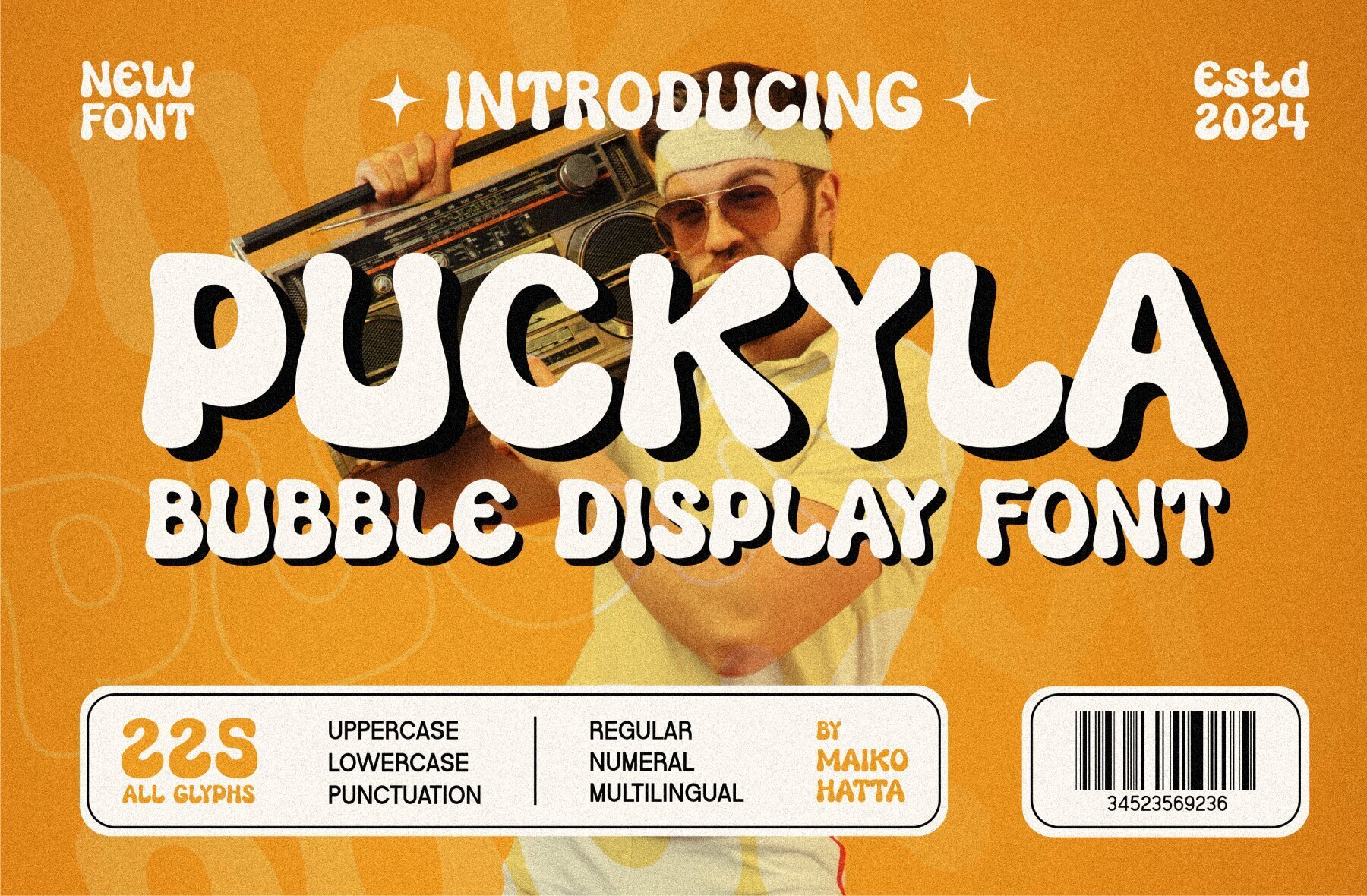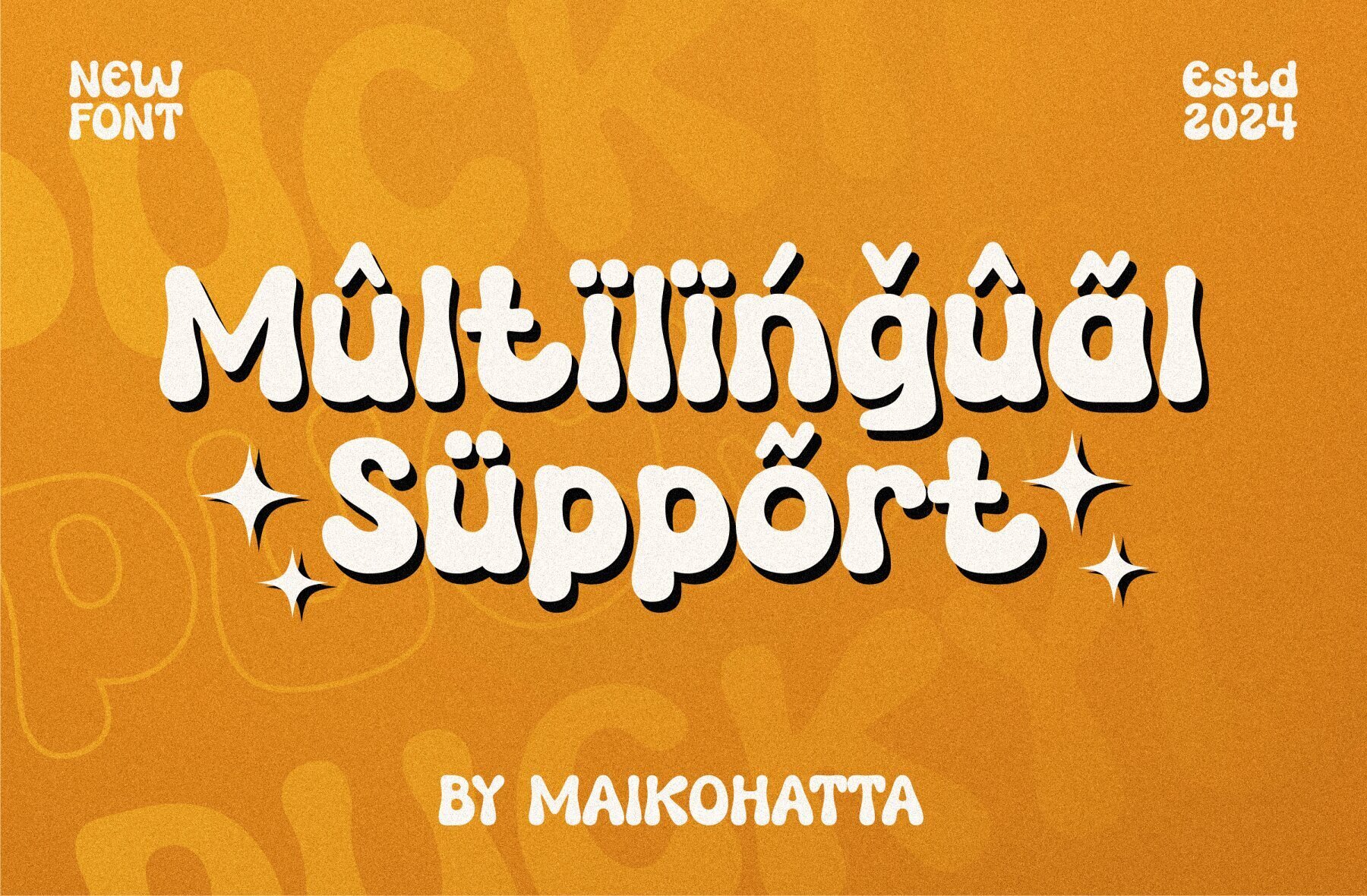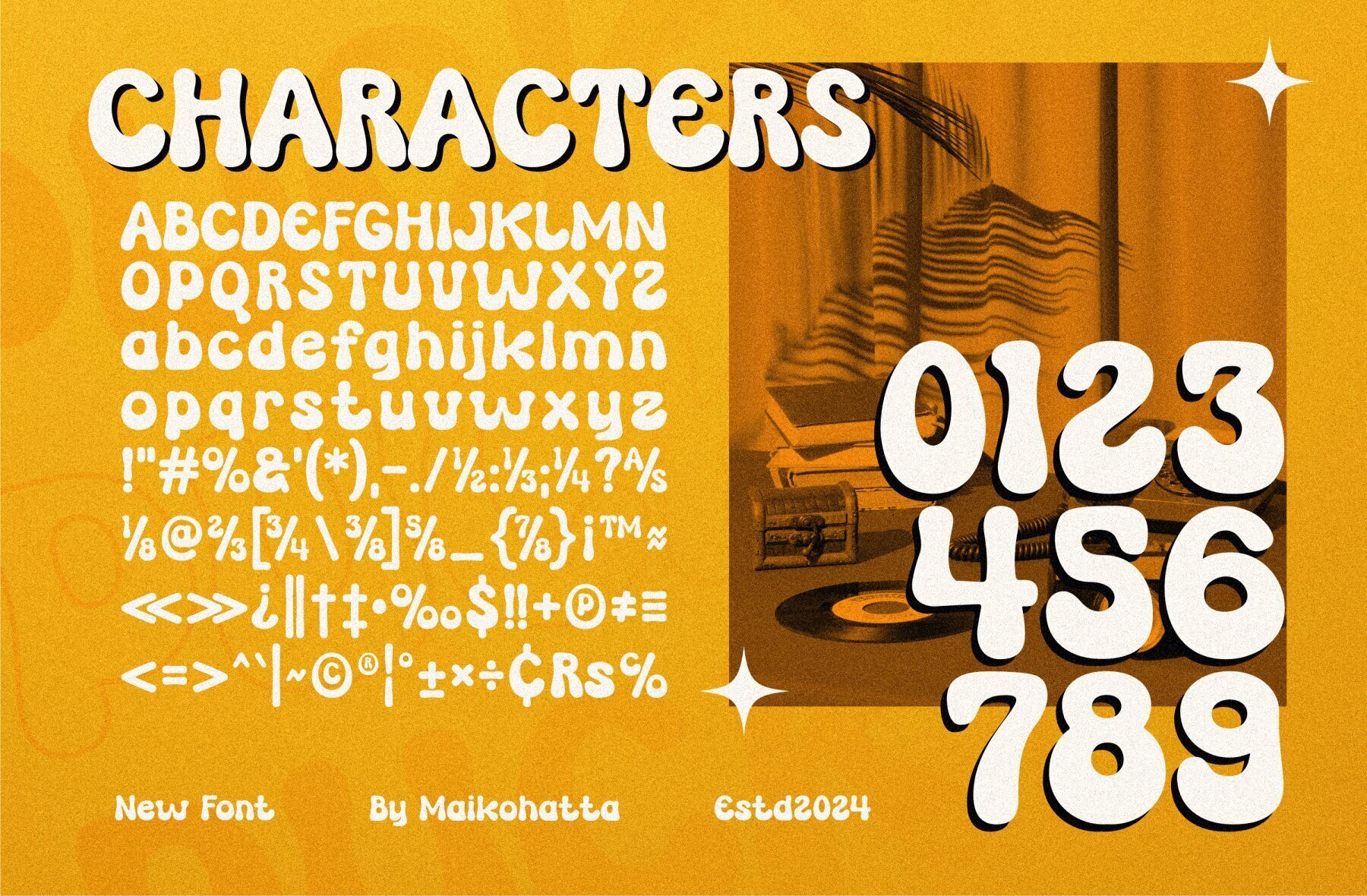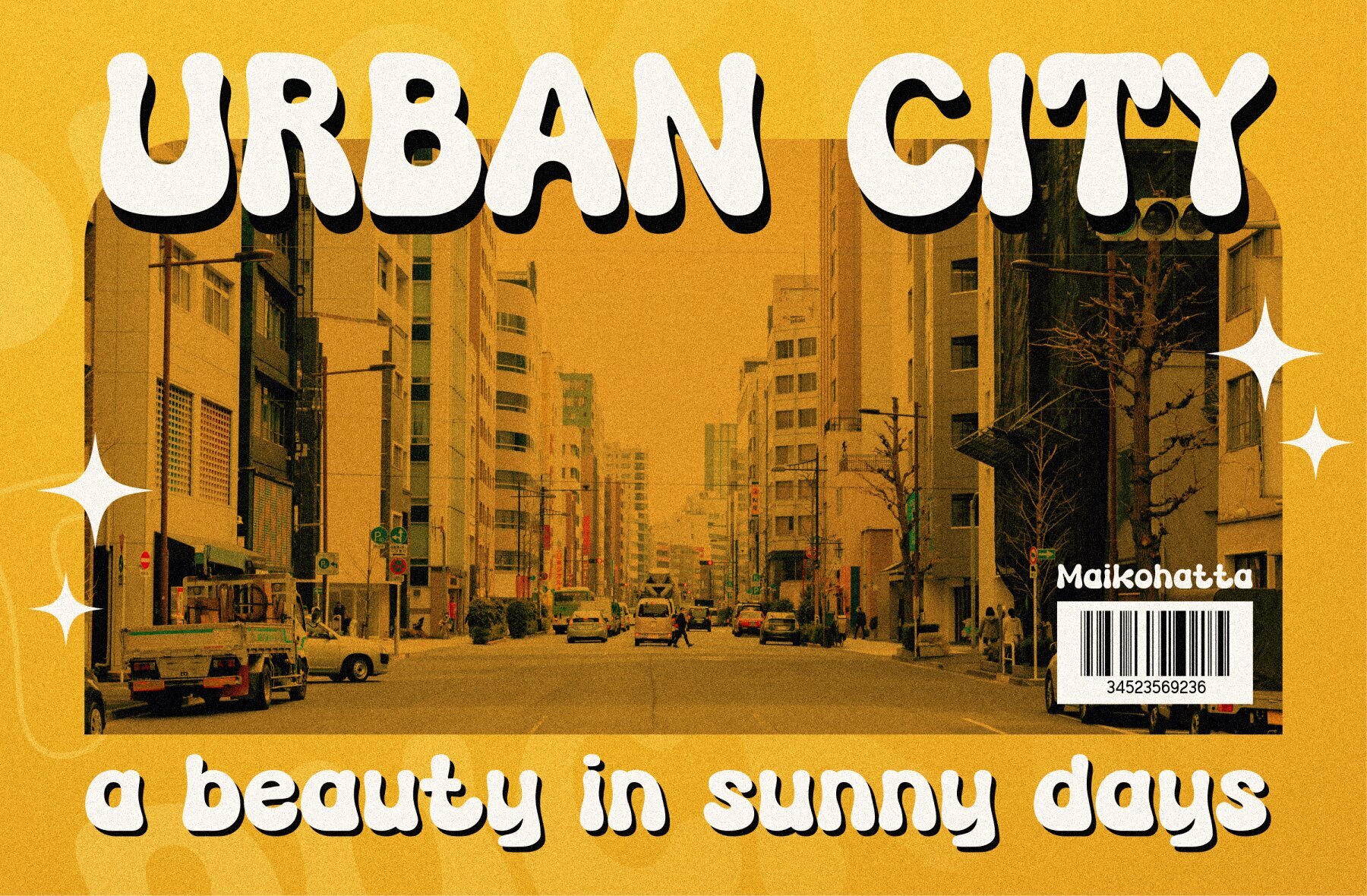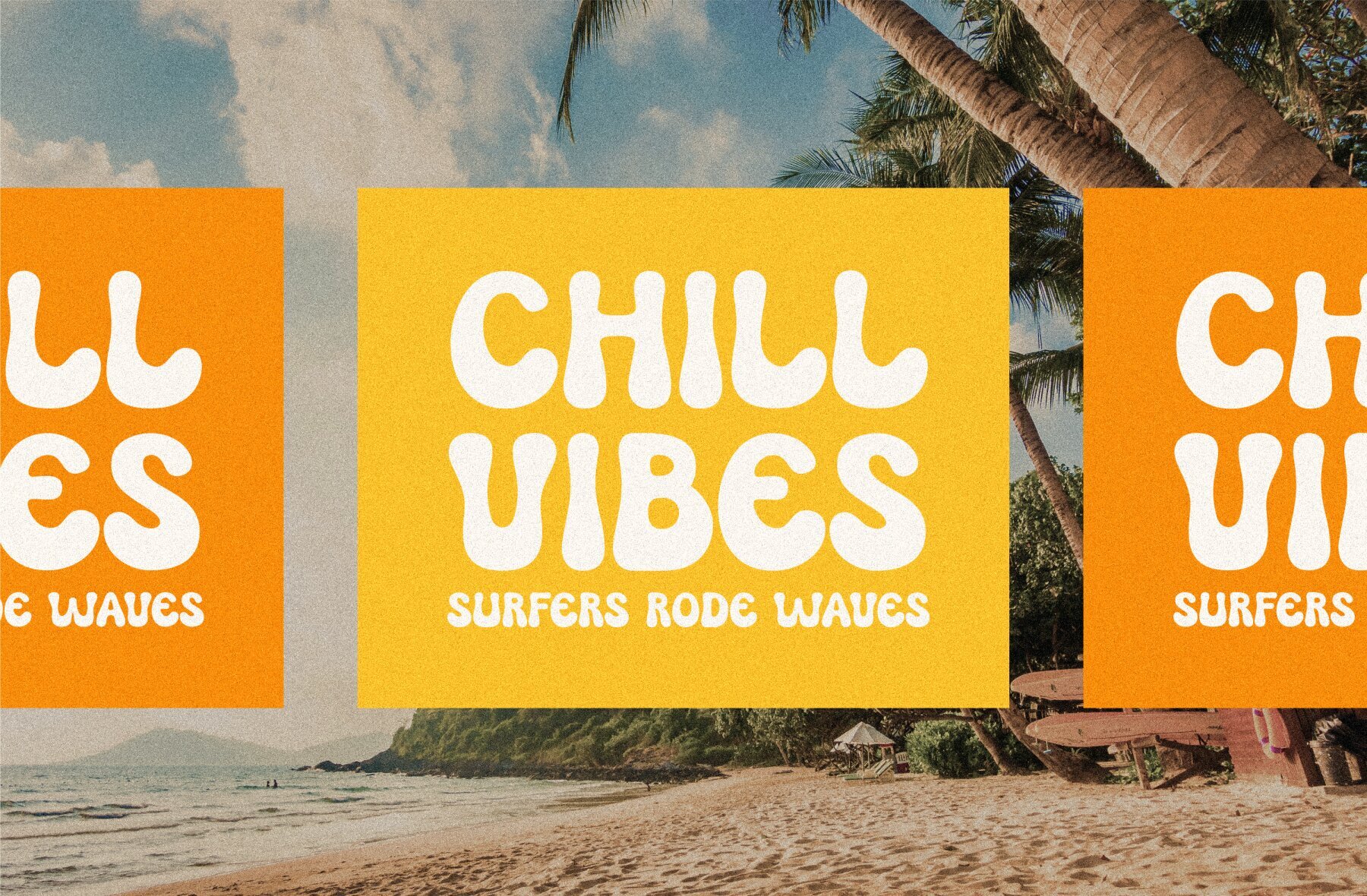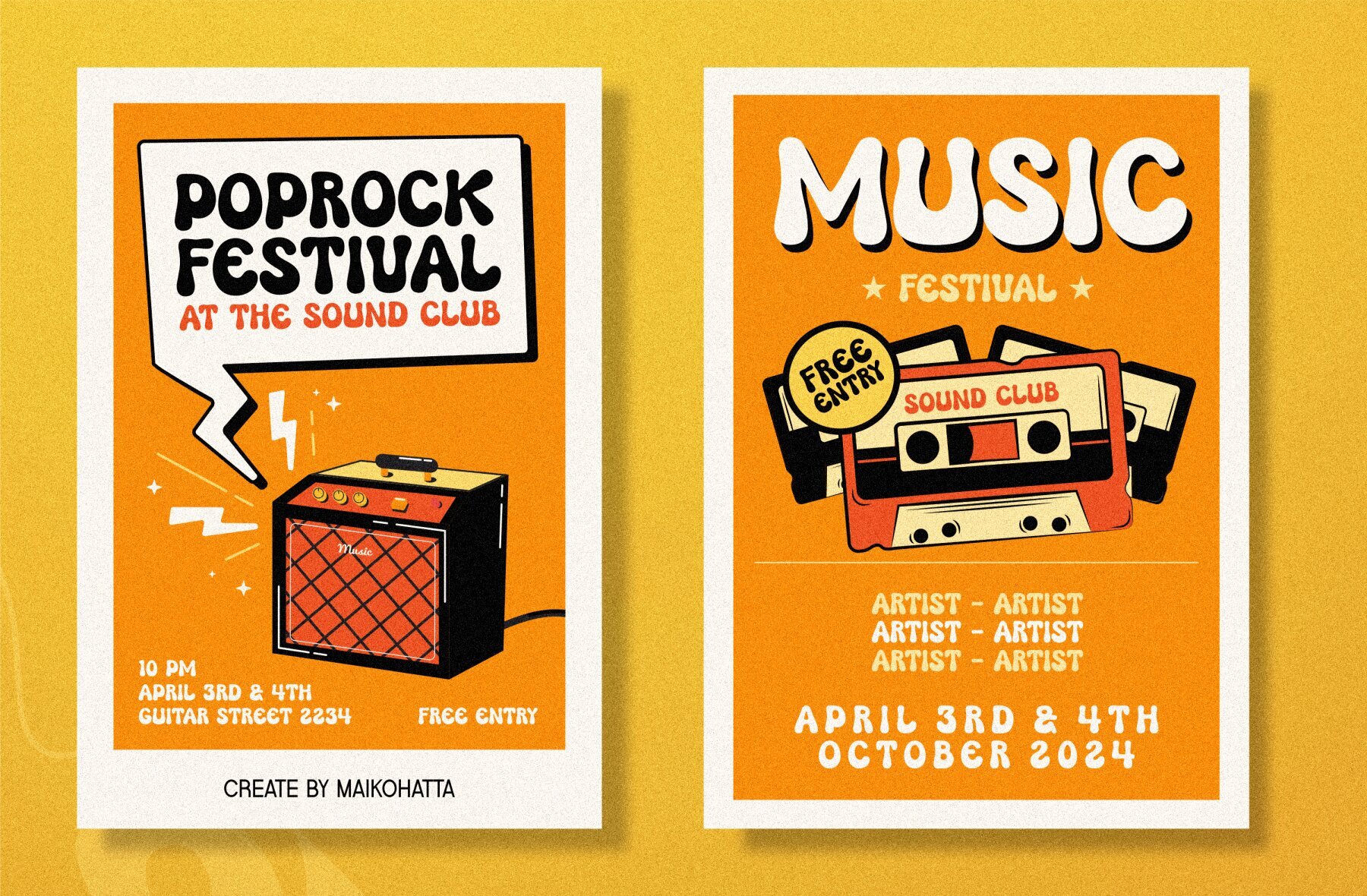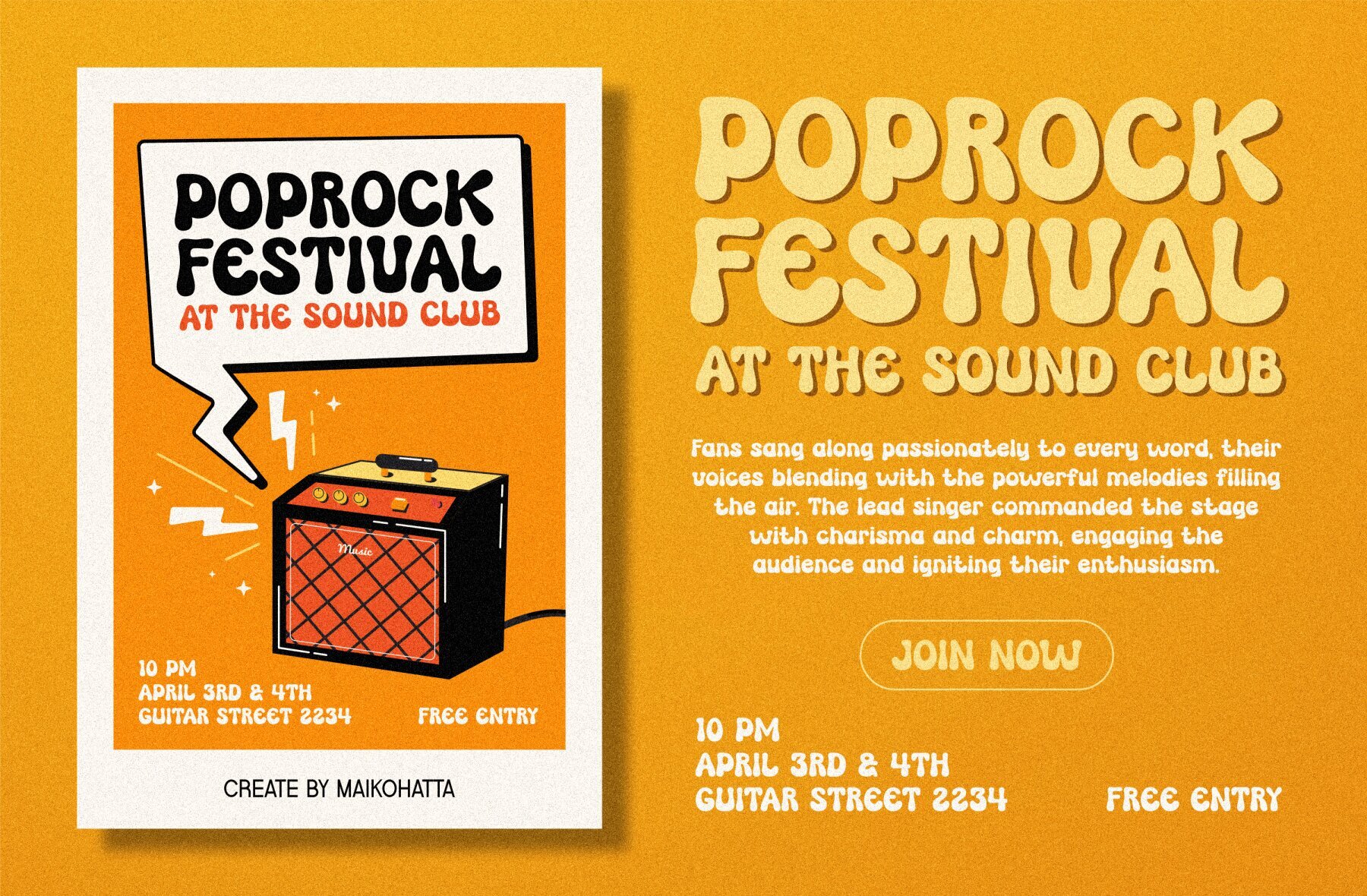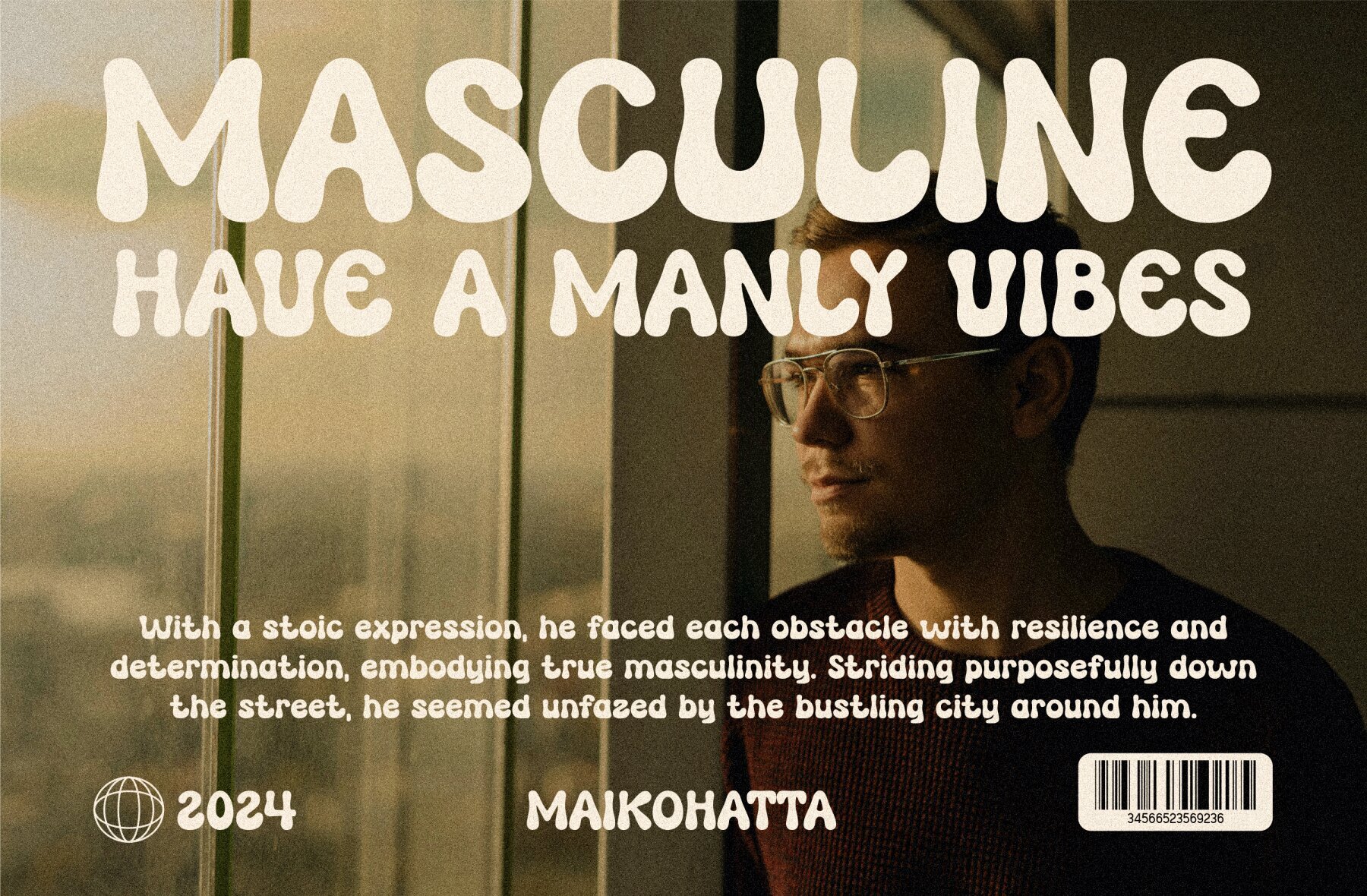
Puckyla Font
Puckyla Regular
Puckyla is a unique bubble display font designed for projects that require a playful and youthful appearance. Its round and wide letter shapes, complemented by curved corners, create a soft and friendly impression, making it perfect for children-oriented designs or those aiming for a lively and cheerful feel.Puckyla: Bubble Display Font for Playful Designs